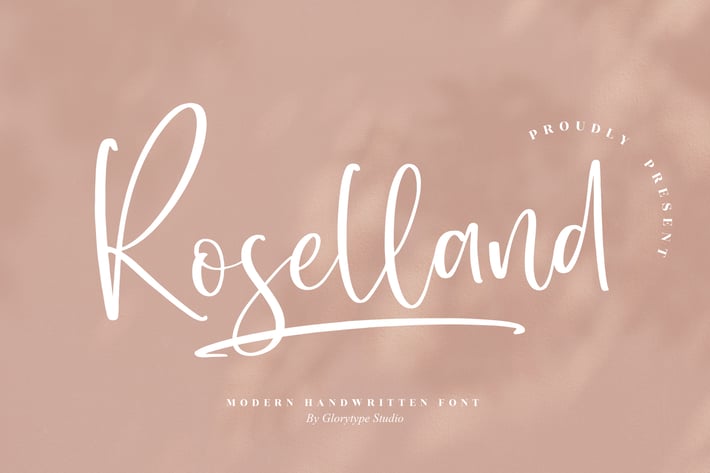
Roselland Modern Handwritten Font
Roselland is a modern handwritten font with a soft, airy vibe — clean, sweet, and super aesthetic. It feels like a smooth personal signature on warm paper, making your designs look gentle, elegant, and effortlessly romantic.
Modern handwritten style with smooth strokes
Soft, minimal, and elegant character
Natural signature flow with subtle charm
Easy to read while staying stylish
Works beautifully for both digital & print
Wedding invites & save-the-dates
Beauty, skincare, and lifestyle branding
Social media posts & quote designs
Product packaging & labels
Elegant logos, headers, and signatures
Soft, simple, and quietly stunning — Roselland is handwriting that feels like a warm whisper.*